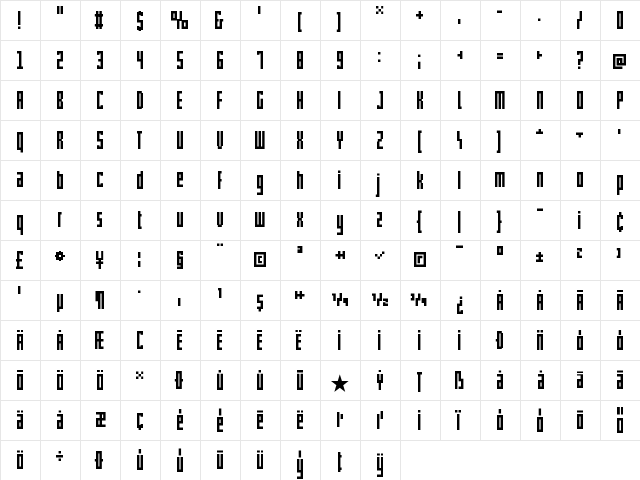
pxlxxlcond Regular
| Foundry | Elvis Mehmedovic |
| Designer | Elvis Mehmedovic |
Design Context for pxlxxlcond Typeface
pxlxxlcond is a composed and adaptable typeface that performs quietly and consistently across a wide range of design contexts. Its narrow stance lets it pack a punch even in space-constrained designs.